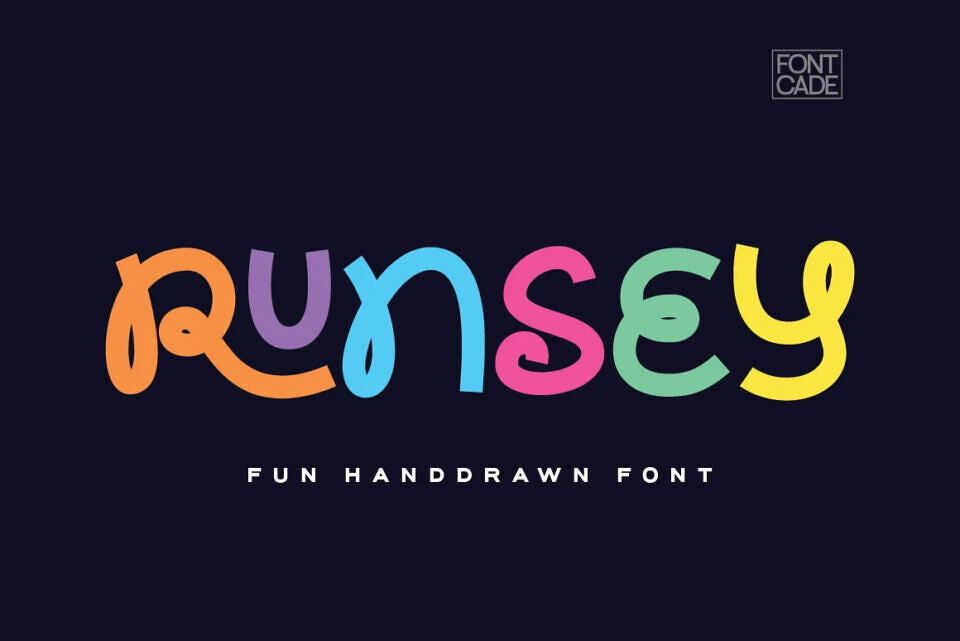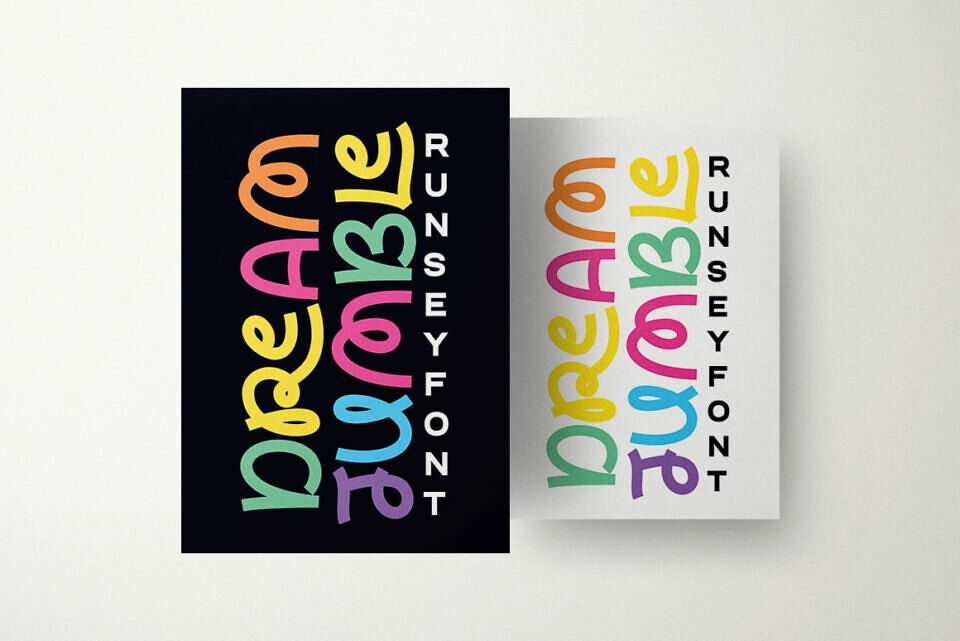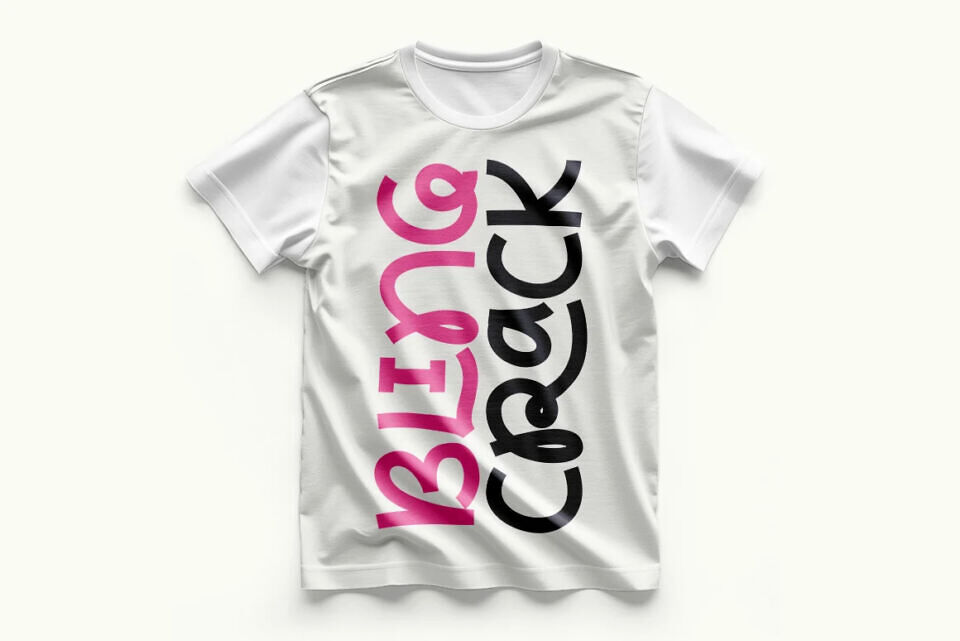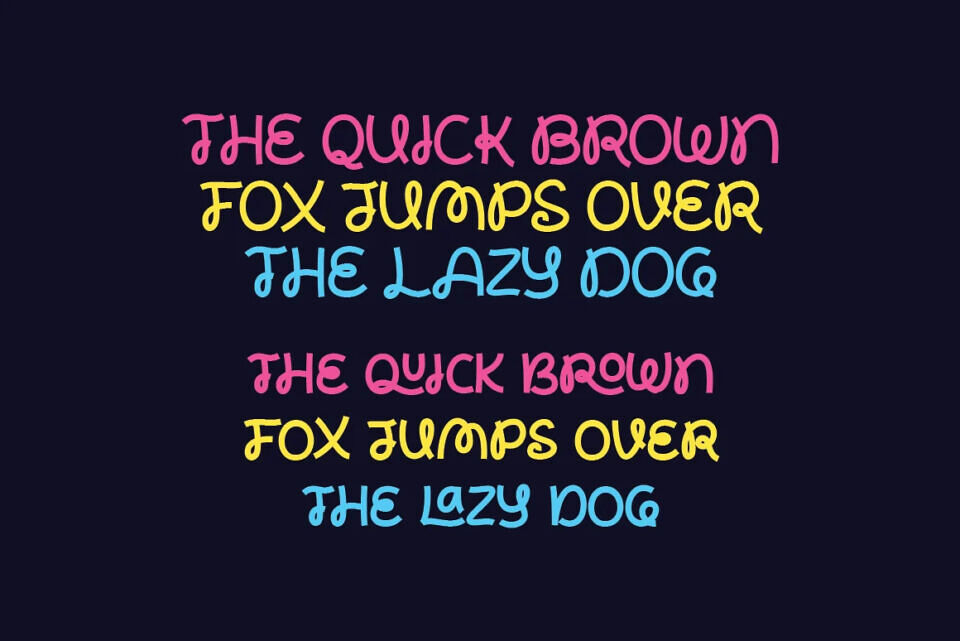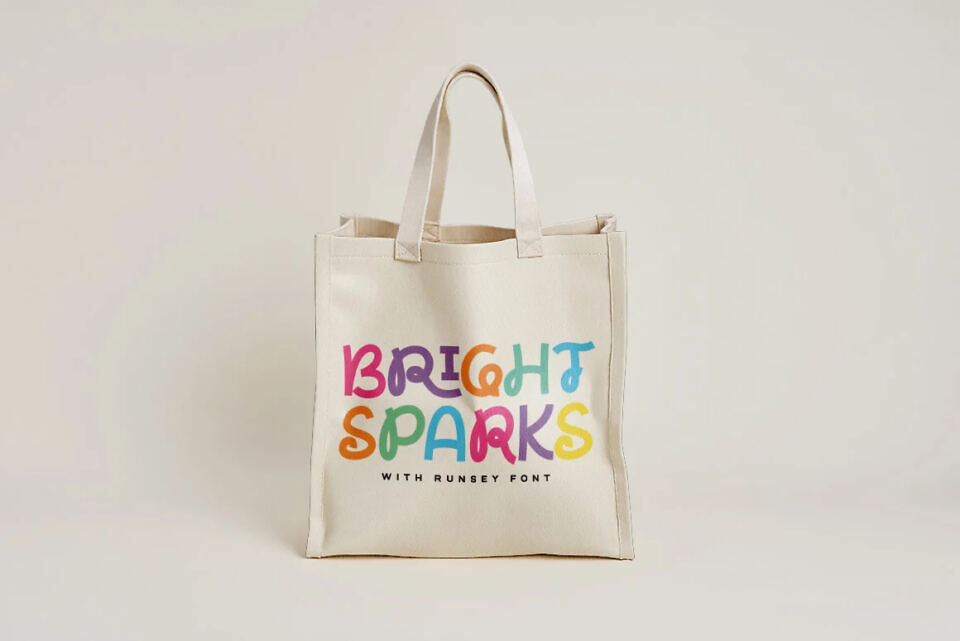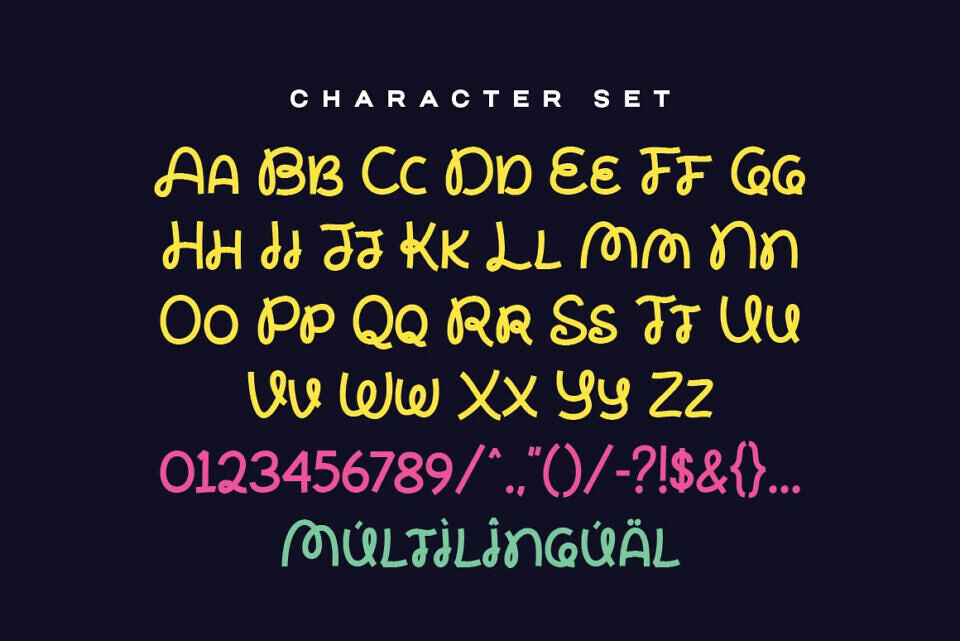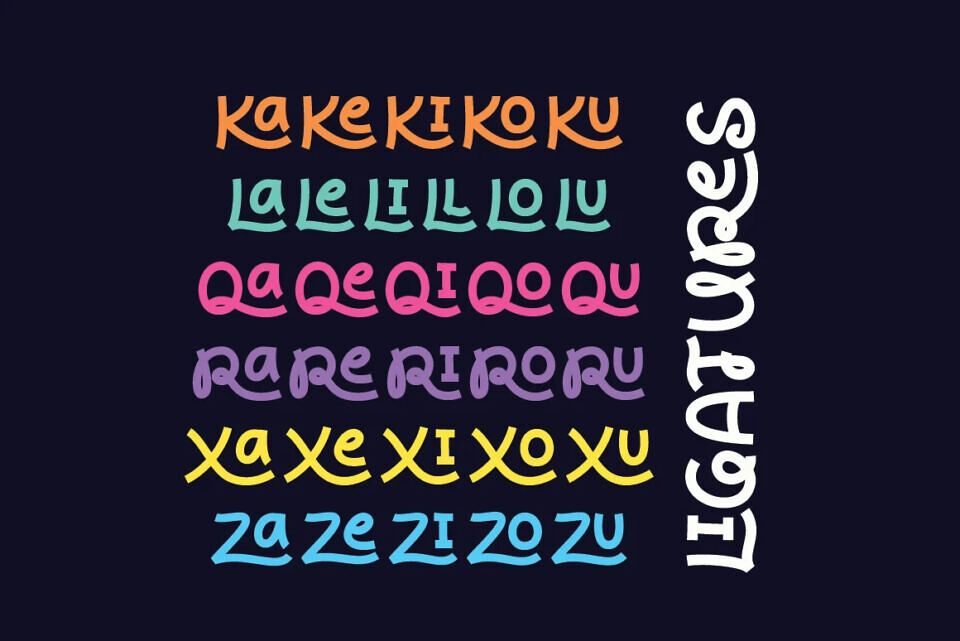
Runsey Font
Runsey is a bold and playful hand-dawn font perfect for kids’ designs, branding, packaging, and posters. It features 32 unique ligatures that add charm and creativity to any project.